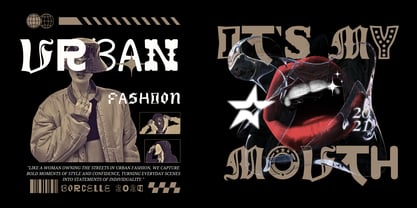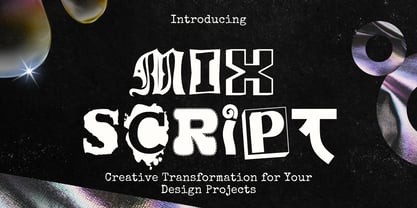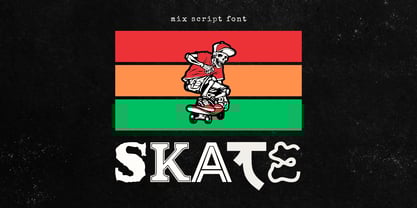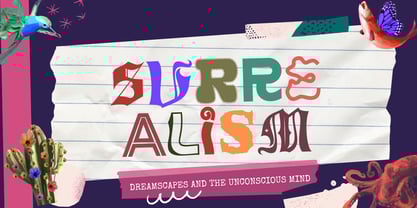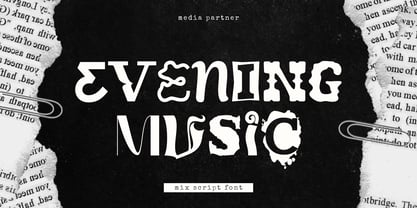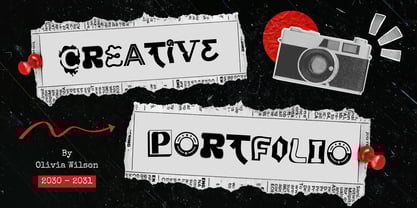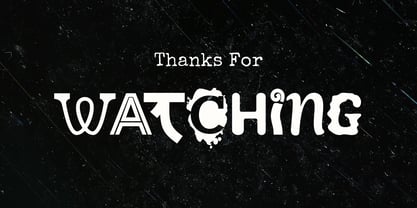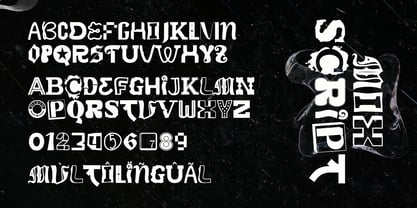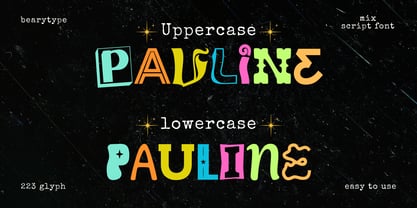
Mixscript
by Beary
The Mixscript Font Family was designed by Dian Haniffan Hadi and published by Beary. Mixscript contains 1 styles. More about this family
MixScript is a unique display font that blends various typographic styles into one captivating creative masterpiece.
Each letter in MixScript is an artistic exploration, combining elements of sans serif, serif, handwriting, and pixel style to create a dynamic and character-filled appearance.
Perfect for posters, branding, editorials, or design projects needing an eccentric touch, MixScript brings bold and unforgettable charm to any design.
Designers: Dian Haniffan Hadi
Foundry: Beary